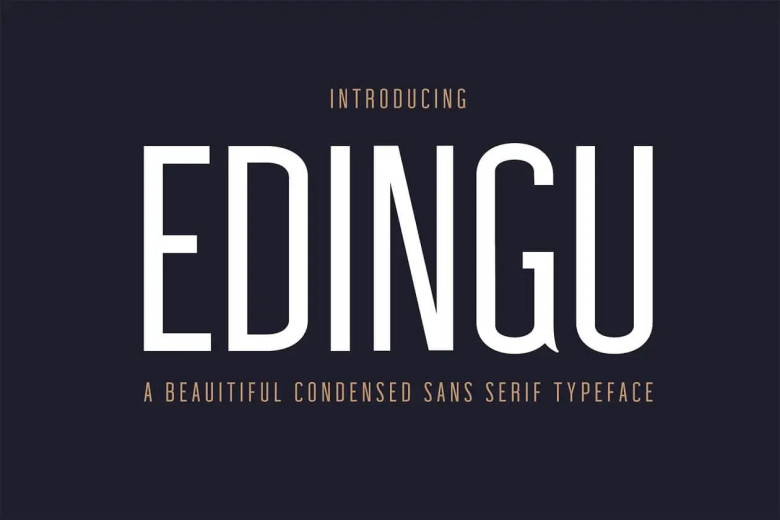
Edingu Font
Edingu is a condensed, minimal rounded sans serif typeface. It features 3 weights: Regular and Round plus Italic which contains complete basic glyphs together with multilingual support. Use Edingu for logo design, packaging, greeting cards, presentations, headlines, set compositions in the mail, posters, branding, advertising, quotes, titles and magazines headings, web compositions layout art quote typography invitations packaging Books and nearly any design with aesthetic quality.
Edingu Sans Serif Font